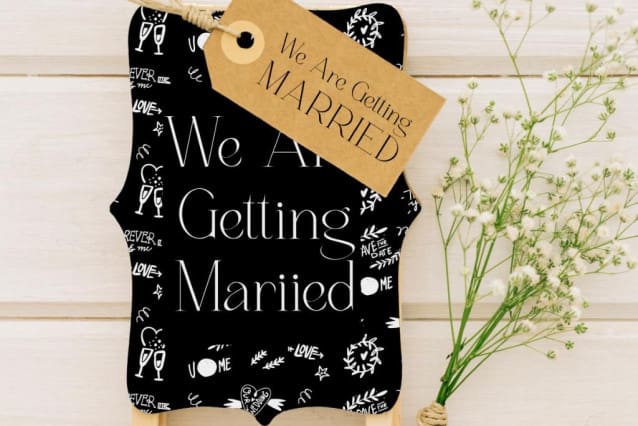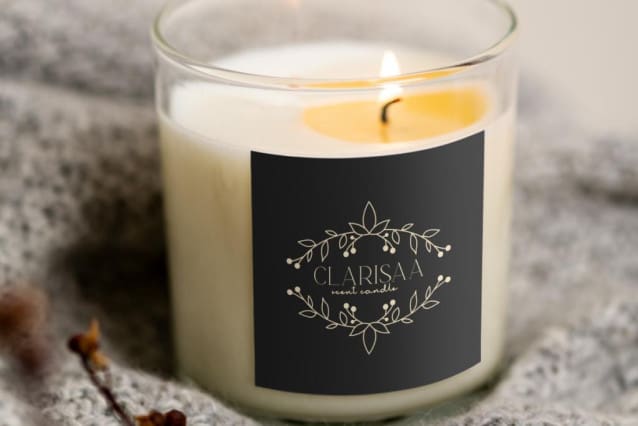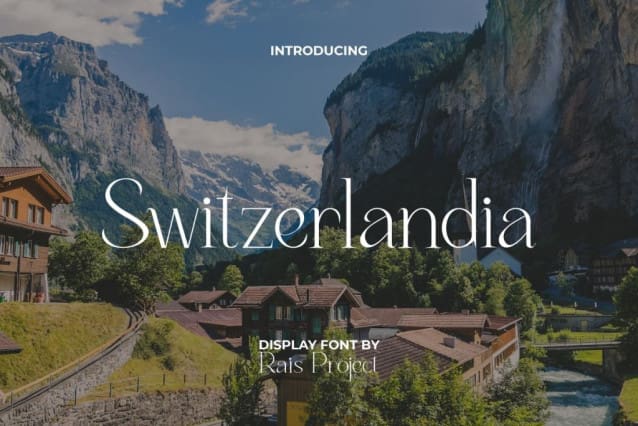
Switzerlandia Font
Switzerlandia Font is a modern minimalist serif display font with smooth line and fits well in a variety of designs. This font also gives a luxurious and expensive impression, making it suitable for use in various types of designs, such as brand logo, business card, cover, custom design, invitation, label, magazine, menu, poster, product packaging, quote, signage, web, and more!
Switzerlandia Font includes a full set of Uppercase and Lowercase Letters, Numerals, Punctuation, and Symbol. This stunning and sleek font will be suitable for various industries, such as café, event or wedding organizer, fashion, furniture, jewelry, photography, printing, publishing, restaurant, etc.